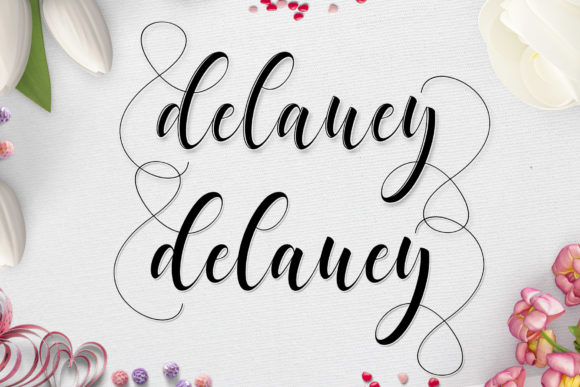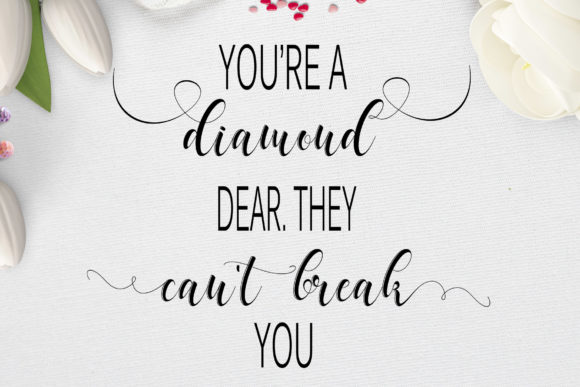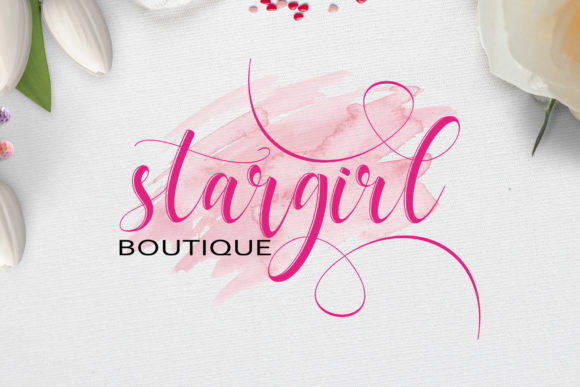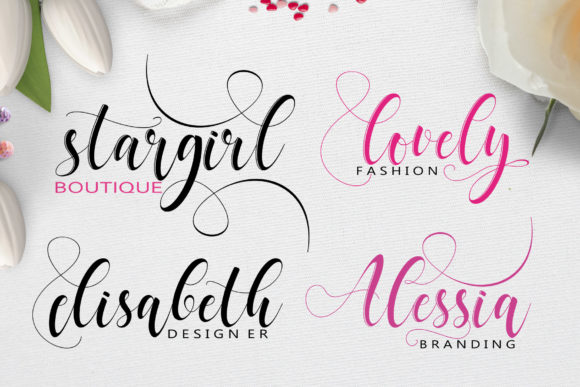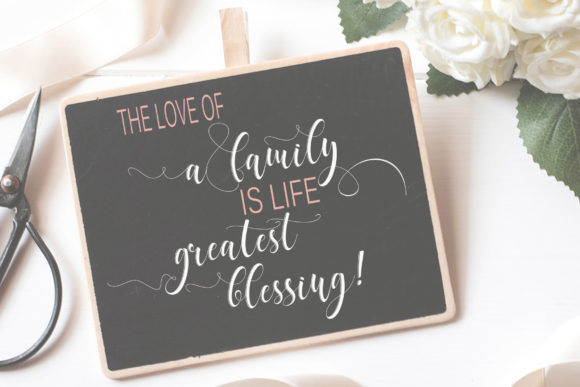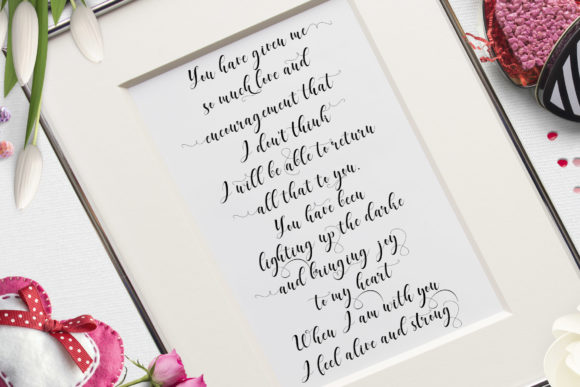
The Delaney Font: Elevate Your Designs with Modern Elegance
In the world of typography, a well-crafted font can make all the difference in elevating your designs to the next level. Introducing the Delaney Font, a modern script font that embodies the perfect blend of elegance and sophistication. Each letter has been meticulously designed to ensure that your text exudes beauty and refinement, making it an ideal choice for a wide range of creative projects.
What Makes Delaney Font Stand Out?
The Delaney Font is a modern script font that boasts a unique and stylish aesthetic. Its modern style is characterized by clean lines, flowing curves, and a sense of fluidity that gives it a dynamic and energetic feel. Every single letter has been carefully crafted to ensure that it is not only visually appealing but also highly legible, making it perfect for use in various design applications.
The Delaney Font is incredibly versatile and can be used in a multitude of design projects, including:
- Invitations: Whether it’s a wedding invitation, birthday party invite, or baby shower announcement, the Delaney Font adds a touch of elegance and sophistication.
- Greeting Cards: From Christmas cards to thank-you notes, this font is perfect for creating beautiful and heartfelt greetings.
- Posters: The Delaney Font is ideal for creating eye-catching posters for events, promotions, or advertisements.
- Name Cards: Add a personal touch to your business cards, place cards, or escort cards with this stylish font.
- Quotes: Use the Delaney Font to create inspiring and visually appealing quote graphics for social media or blogs.
- Blog Headers: Elevate your blog’s header with a touch of modern elegance and sophistication.
- Branding and Logos: The Delaney Font is perfect for creating unique and memorable brand identities.
- Fashion Designs: From clothing labels to fashion blog headers, this font is a great choice for fashion designers and bloggers.
- Apparel: Use the Delaney Font to create stylish and eye-catching designs for t-shirts, hoodies, and other apparel.
- Letter and Stationery: Add a touch of elegance to your letters, stationery, and envelopes with this beautiful font.
Why Choose Delaney Font?
So, why should you choose the Delaney Font for your design projects? Here are just a few reasons:
- Unique and Stylish: The Delaney Font offers a fresh and modern take on traditional script fonts.
- Highly Legible: Each letter has been carefully designed to ensure that it is easy to read and understand.
- Versatile: This font can be used in a wide range of design projects, from invitations to branding and logos.
- Elegant and Sophisticated: The Delaney Font exudes a sense of refinement and luxury, making it perfect for high-end designs.
Tips for Using Delaney Font
To get the most out of the Delaney Font, here are a few tips to keep in mind:
- Use it sparingly: While the Delaney Font is beautiful, it can be overwhelming if used excessively. Use it sparingly to add a touch of elegance to your designs.
- Experiment with colors: The Delaney Font looks great in a variety of colors, so don’t be afraid to experiment and find the perfect hue for your design.
- Pair it with other fonts: The Delaney Font pairs well with other fonts, so try combining it with a sans-serif font for a stylish contrast.
In conclusion, the Delaney Font is a modern script font that offers a unique and stylish aesthetic, making it perfect for a wide range of design projects. Its elegance and sophistication make it an ideal choice for designers and crafters looking to elevate their designs to the next level. With its high legibility, versatility, and luxurious feel, the Delaney Font is sure to become a go-to font in your design arsenal.